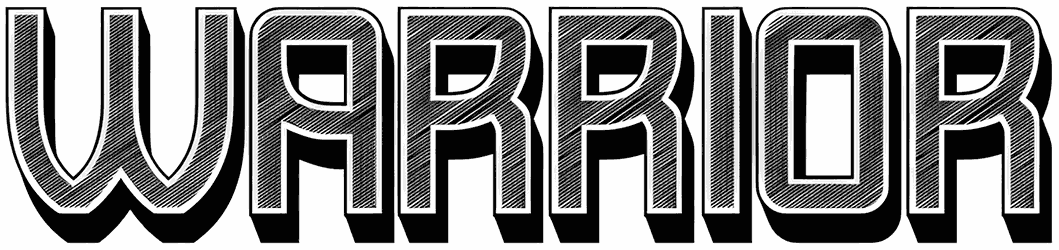
Warrior Font
If you want to have hand art and 3D style in your subsequent design, this will make you excited. Warrior is a western font with a unique and bold mood that could be a nice item for various subjects. Without lowercase letters and most of the punctuation marks, this English font remains a popular face for wordmarks, movie ads, flyers, and many others like.